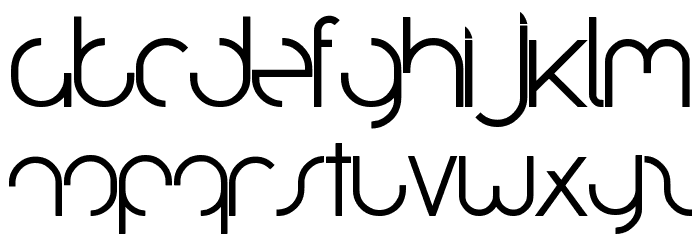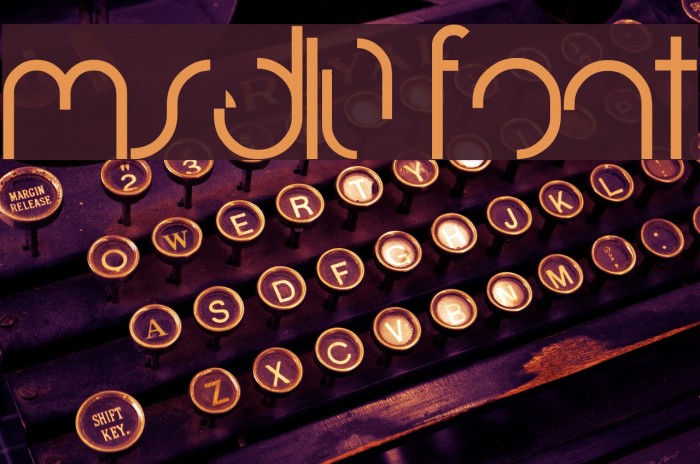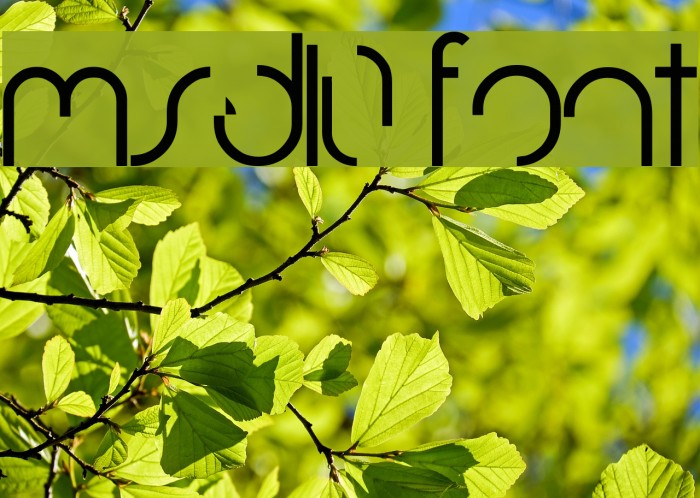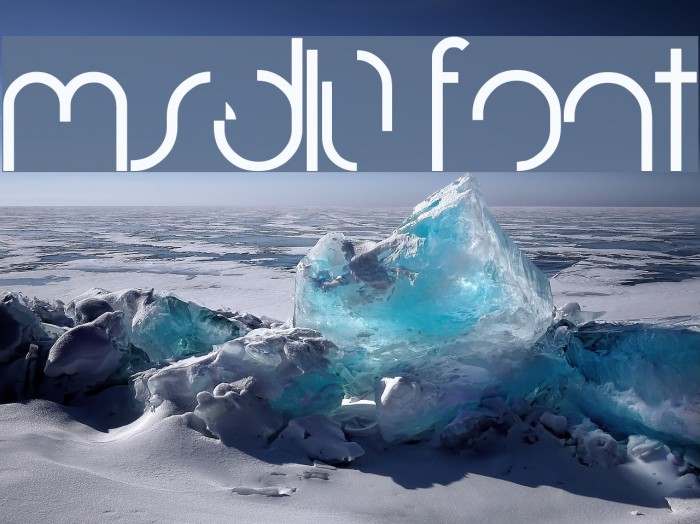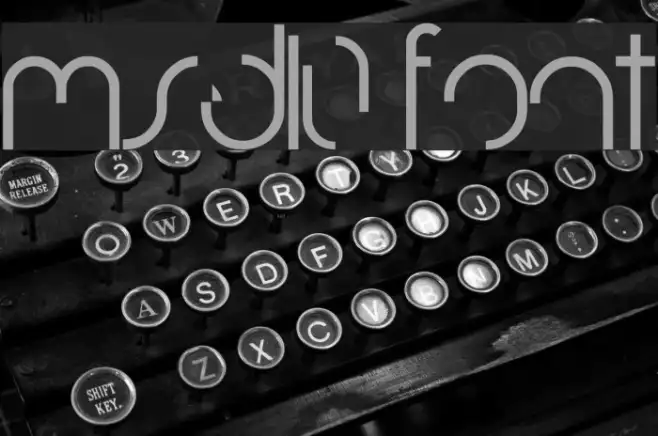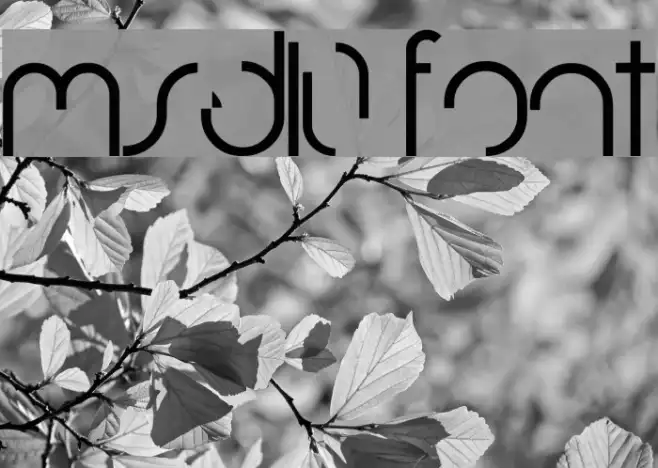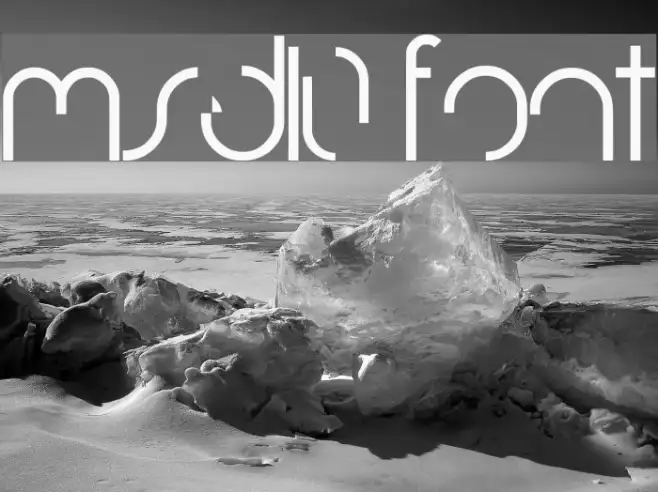
MSD10 Font
This font features a modern and geometric design with a unique approach to character formation. The letters are crafted with a combination of straight lines and curves, creating a futuristic and artistic appearance. The uppercase and lowercase letters maintain a consistent style, with some characters having distinctive cutouts that add to the font's uniqueness. The numbers follow the same design principles, ensuring uniformity across all characters. This font's clean and minimalistic look makes it suitable for contemporary design projects.
A modern, geometric font with unique cutouts and a futuristic style.
- Proposed Projects: Ideal for branding, advertising, digital media, and modern art projects.
- Category: Modern
- Overall Style: Futuristic and artistic
- Use Case: Logos, headlines, digital media